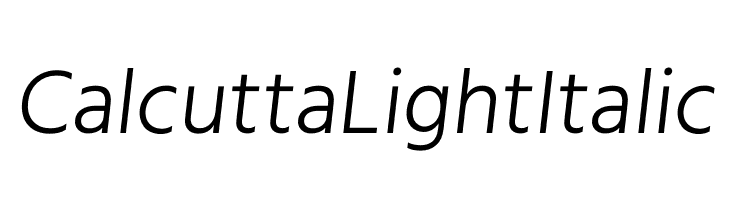
An elegant oblique font with sleek, slanted letterforms and moderate stroke contrast.
A sleek, modern, light italic font with smooth curves and a minimalistic design.